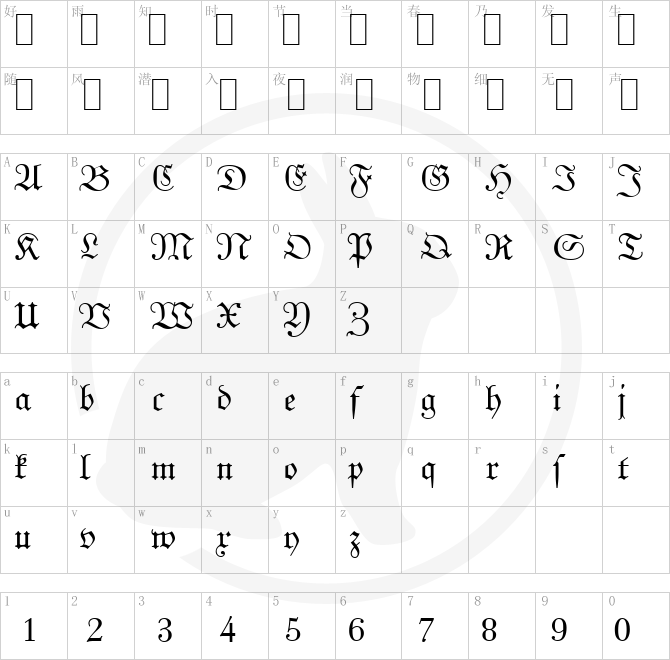
- Font Name:J790-Blackletter
- Subfamily:SoftMaker Software GmbH J790-Blackletter-Regular
J790-Blackletter-Regular.ttf is a very beautiful artistic font, J790-Blackletter-Regular.ttf is widely used in the design and printing of various books and pictures,J790-Blackletter-Regular.ttf has a strong visual impact,J790-Blackletter-Regular.ttf is a commonly used font in newspapers, magazines and books, and is used in posters, e-commerce Poster design, store design, logo design, font design and other fields.J790-Blackletter-Regular.